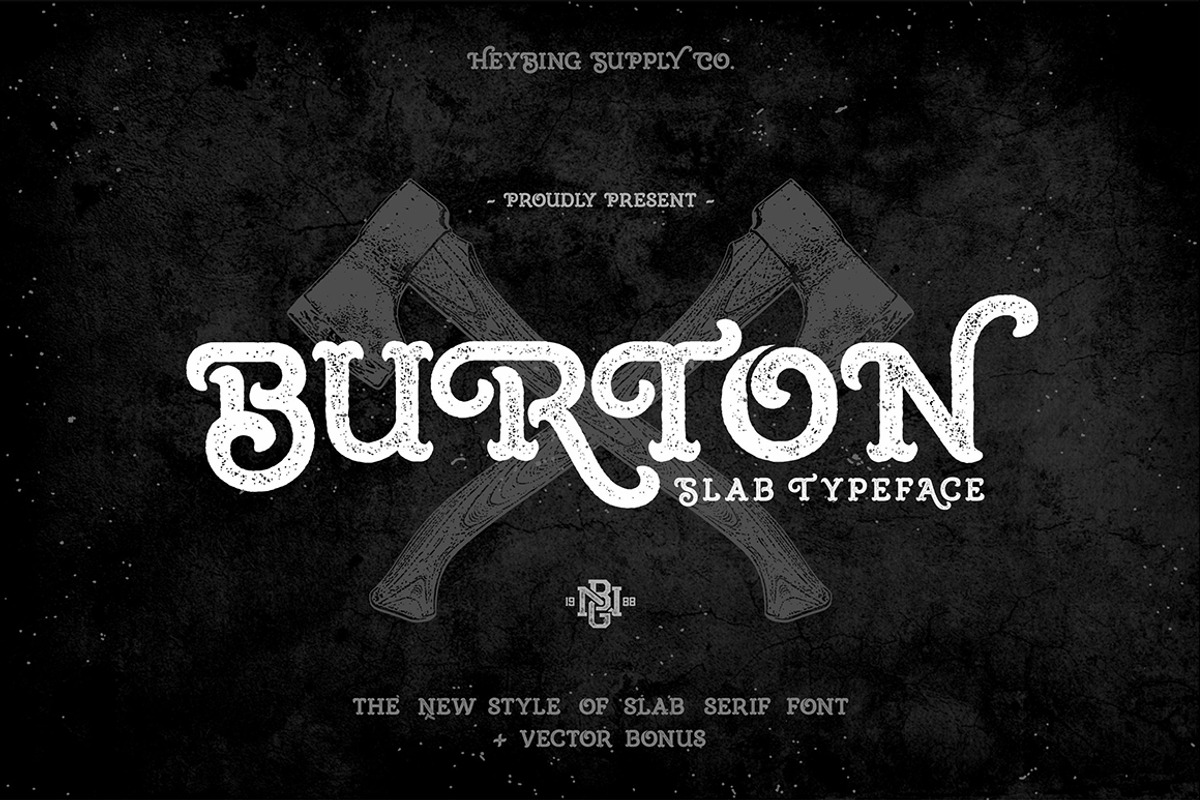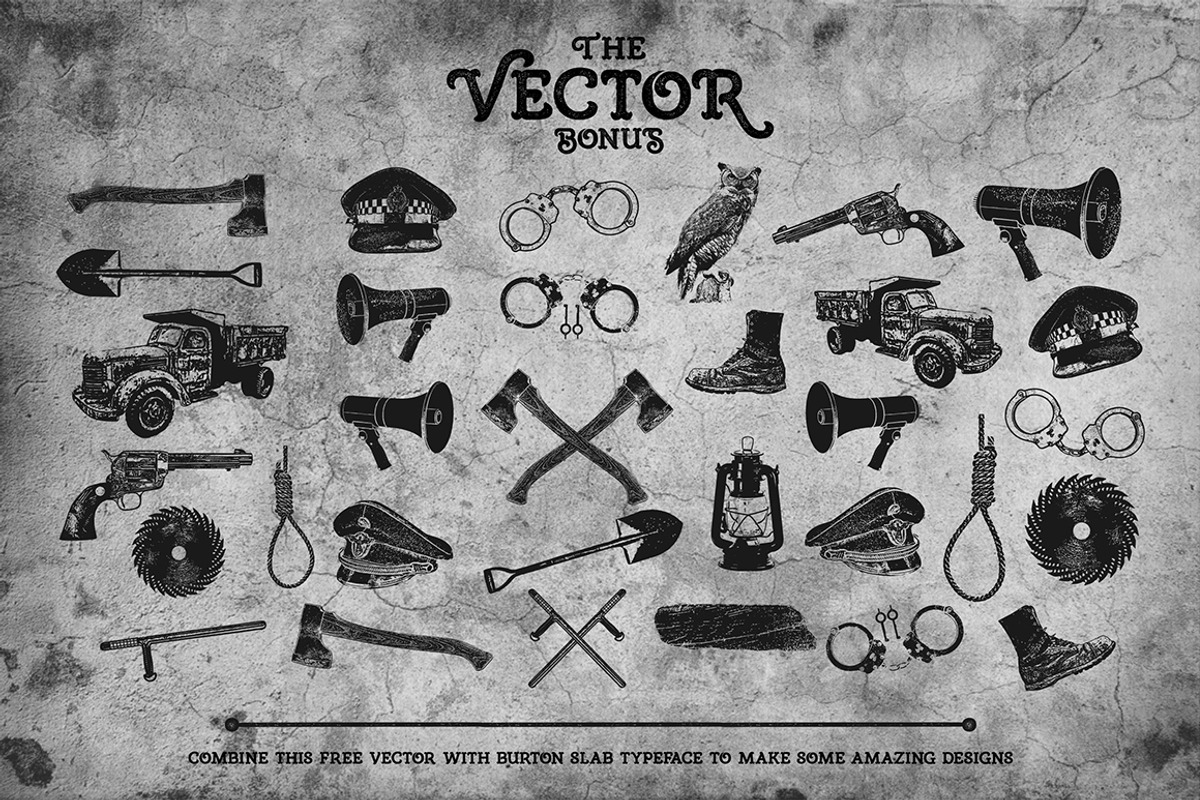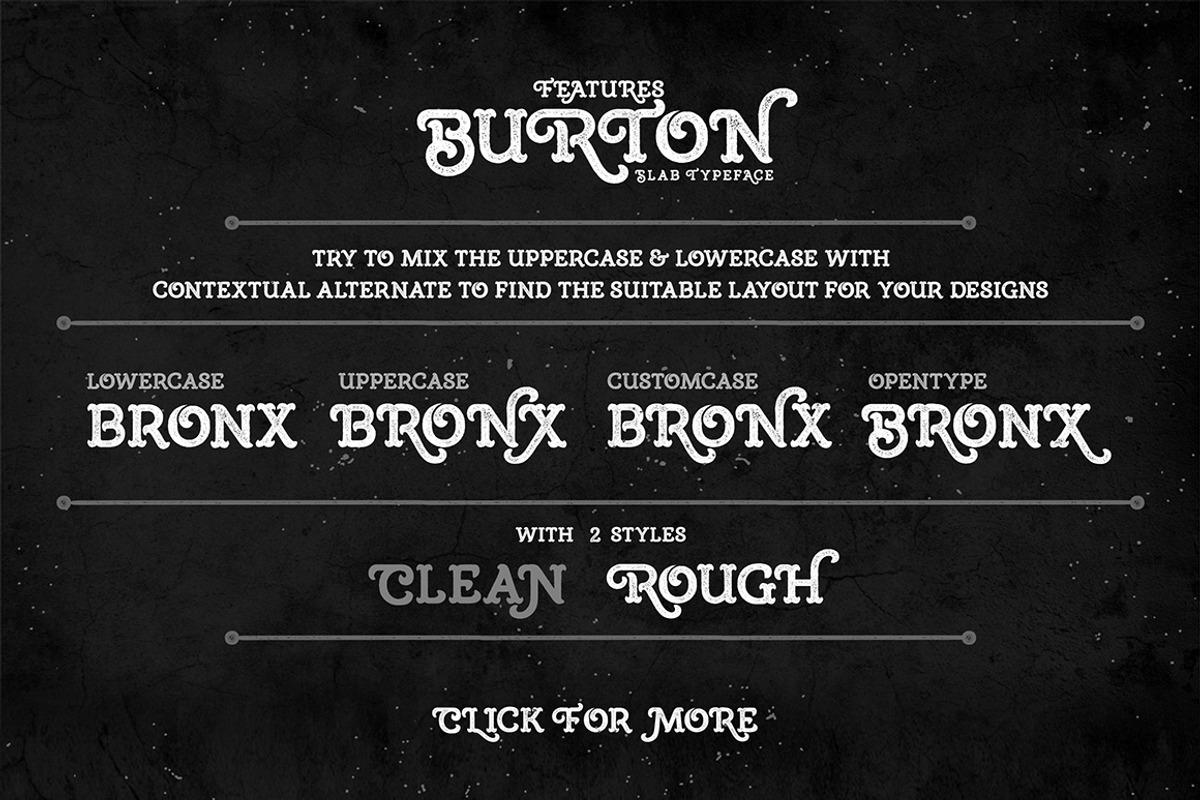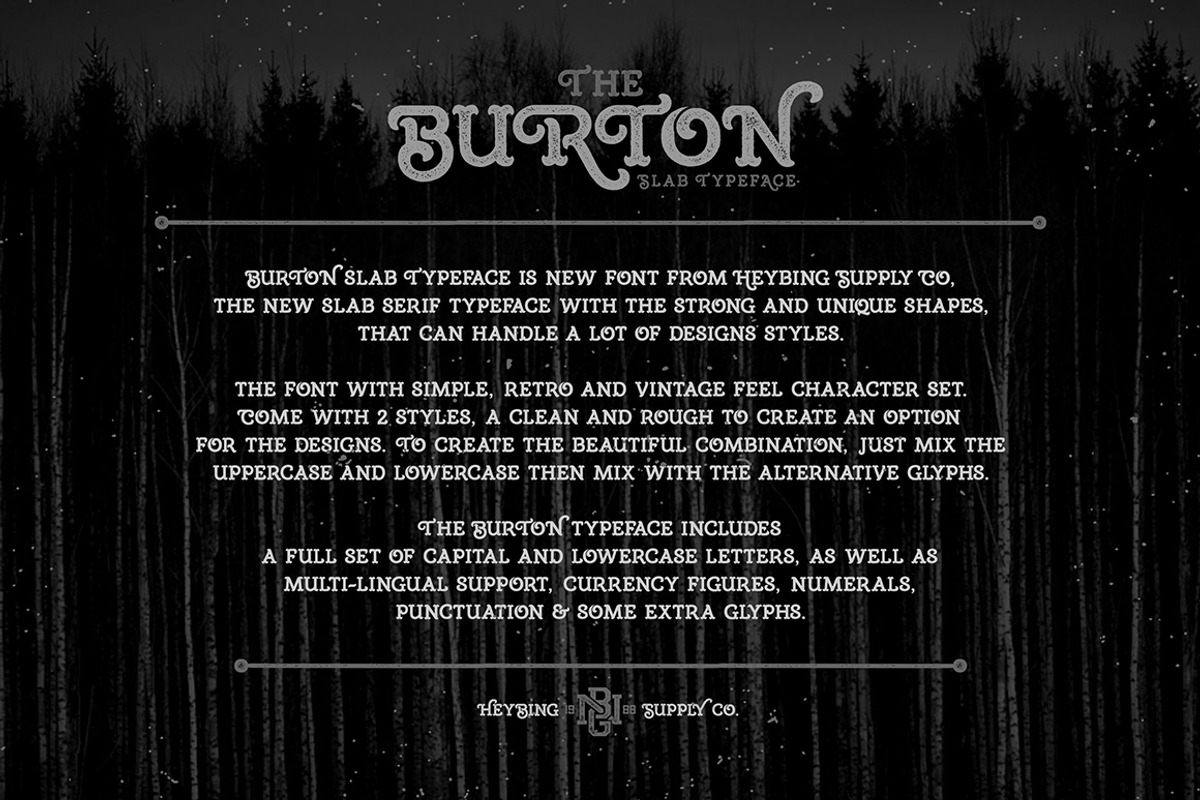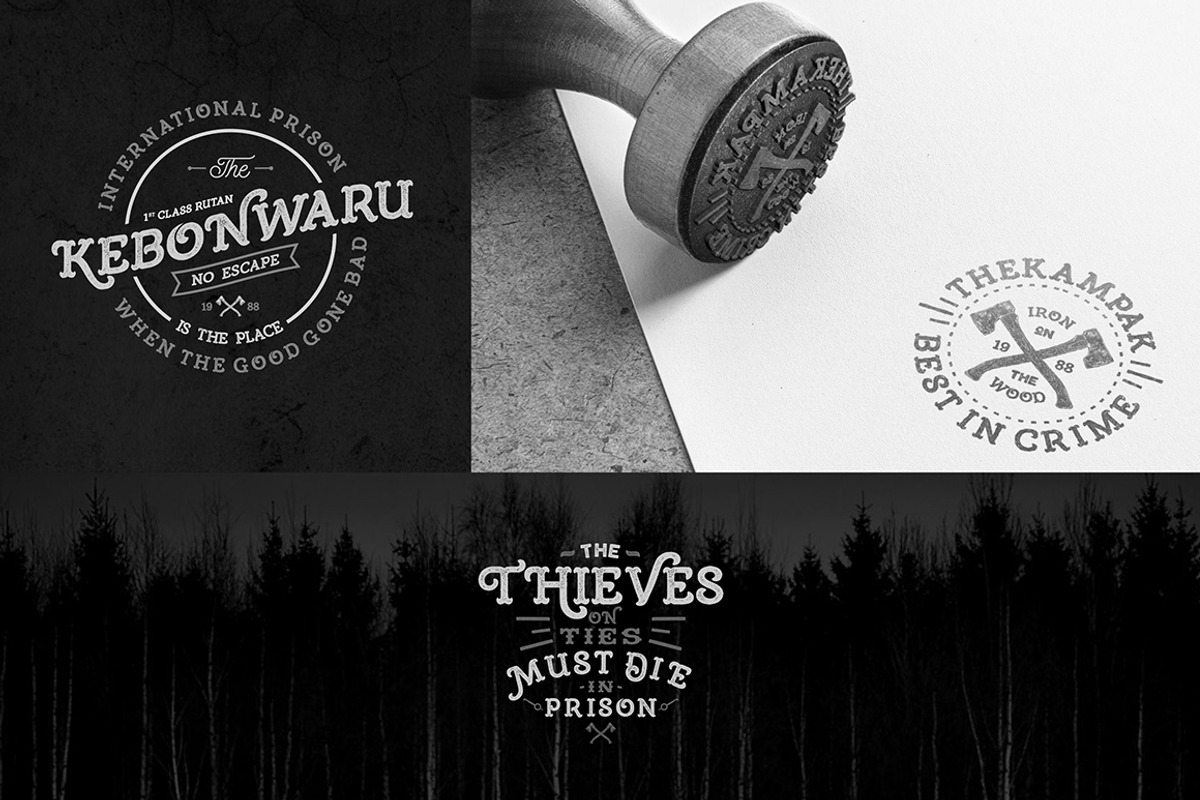
Burton Slab Typeface + Bonus
Burton Slab Typeface + Bonus by Heybing Supply Co. is a font selected for branding, posters, packaging, typography.
- Burton Slab Typeface includes a full set of capital and lowercase letters, as well as multi-lingual support, currency figures, numerals, pun
- Character Set A-Z
Burton Slab Typeface + Bonus by Heybing Supply Co. fits naturally into Branding, posters, packaging, typography.